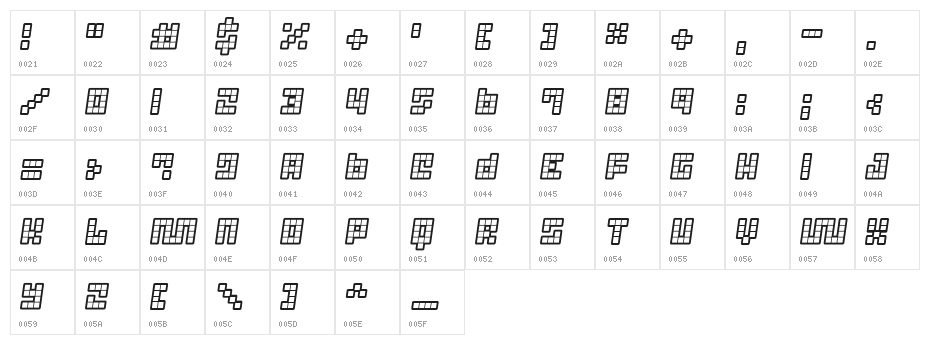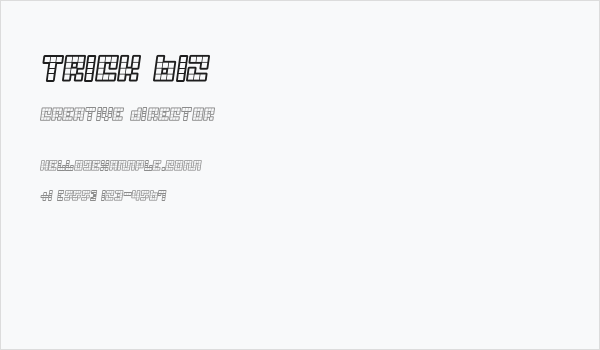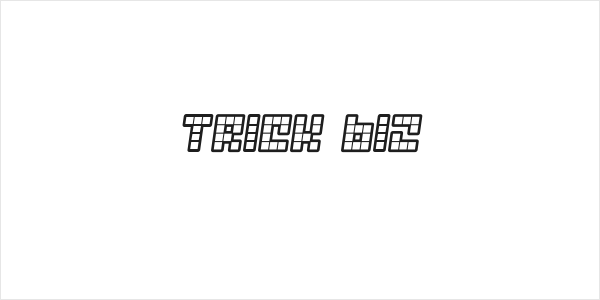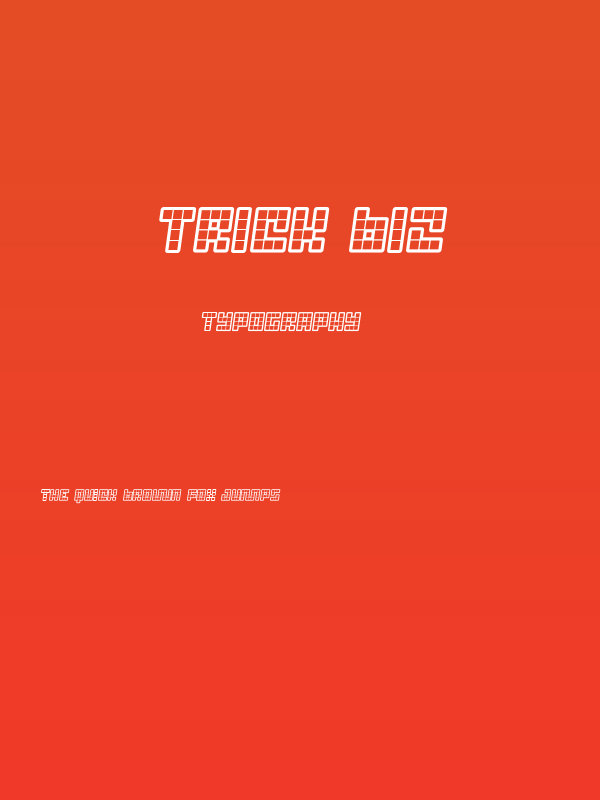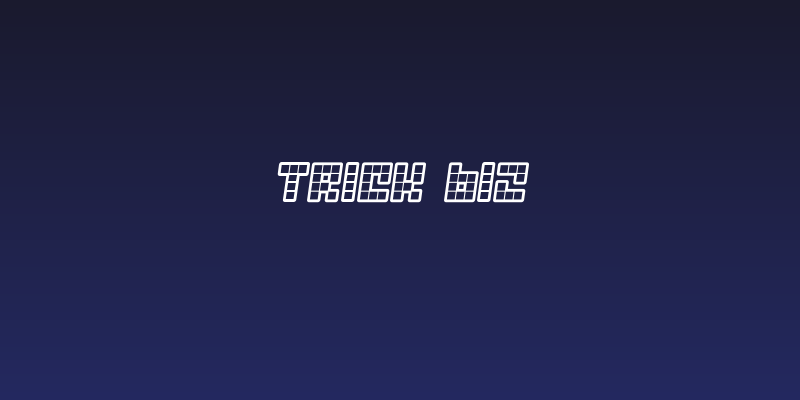
Trick B12 Font
Trick B12 Description
This font features a unique grid-based design, where each character is composed of a series of interconnected squares, creating a pixelated and geometric appearance. The bold outlines enhance the visibility of each letter, making it stand out. The uppercase and lowercase letters share a consistent style, maintaining uniformity across the alphabet. Numbers and special characters are also designed with the same grid pattern, ensuring a cohesive look. This font's distinct style is reminiscent of retro video games or digital displays, offering a nostalgic yet modern aesthetic.
| Overall Style | Retro, Modern |
| Use Case | Logos, Posters, Digital Art |
| Proposed Projects | Ideal for video game designs, tech-themed posters, digital art projects, and retro-style branding. |